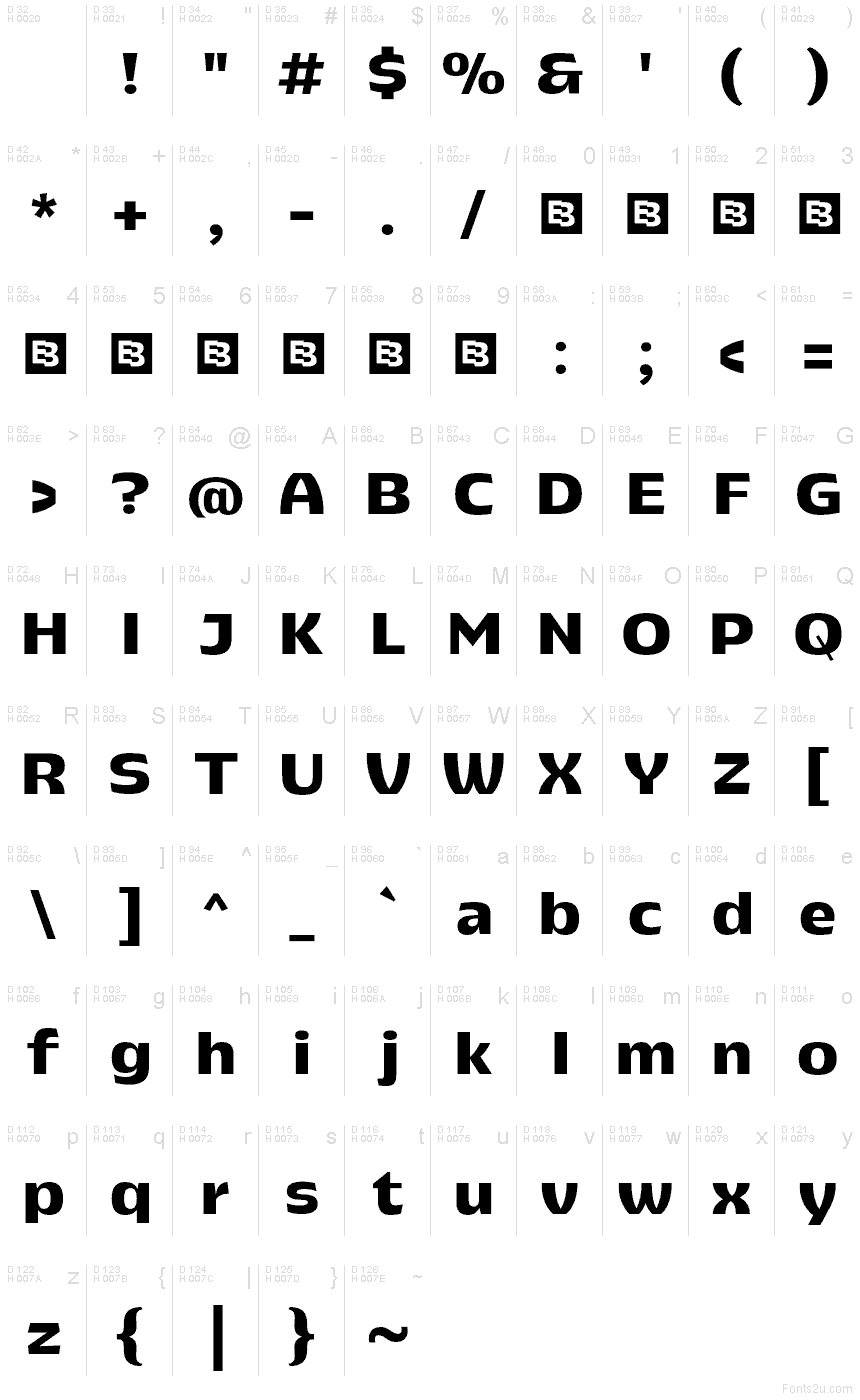
Pocas Trial Bold
Pocas Bold font by Eko Bimantara is a free bold sans serif typeface. Its signature look comes from dense, rounded forms with wide, pill‑like counters and smooth joins, so letters feel weighty yet welcoming. The spacing is snug in a satisfying way, locking words into solid blocks that hit hard without looking harsh—think big impact with a soft edge.
Using Pocas Bold, headlines land with authority while staying friendly and modern. It shines on branding, posters, packaging, social graphics, app headers, signage, and merch, where chunky strokes and clean curves boost legibility and presence. For a simple pairing, set titles in Pocas Bold and body copy in the Pocas family’s regular weight or a light grotesque to keep the texture balanced. This free font brings confident clarity with just enough warmth.